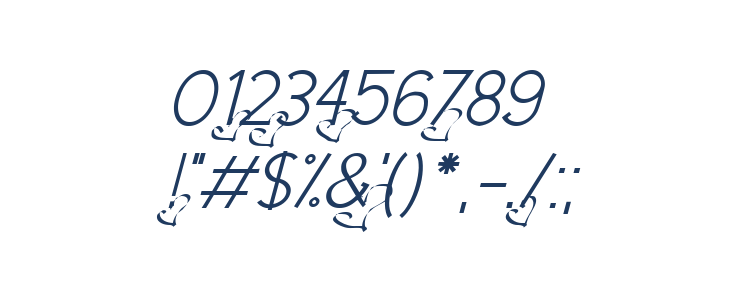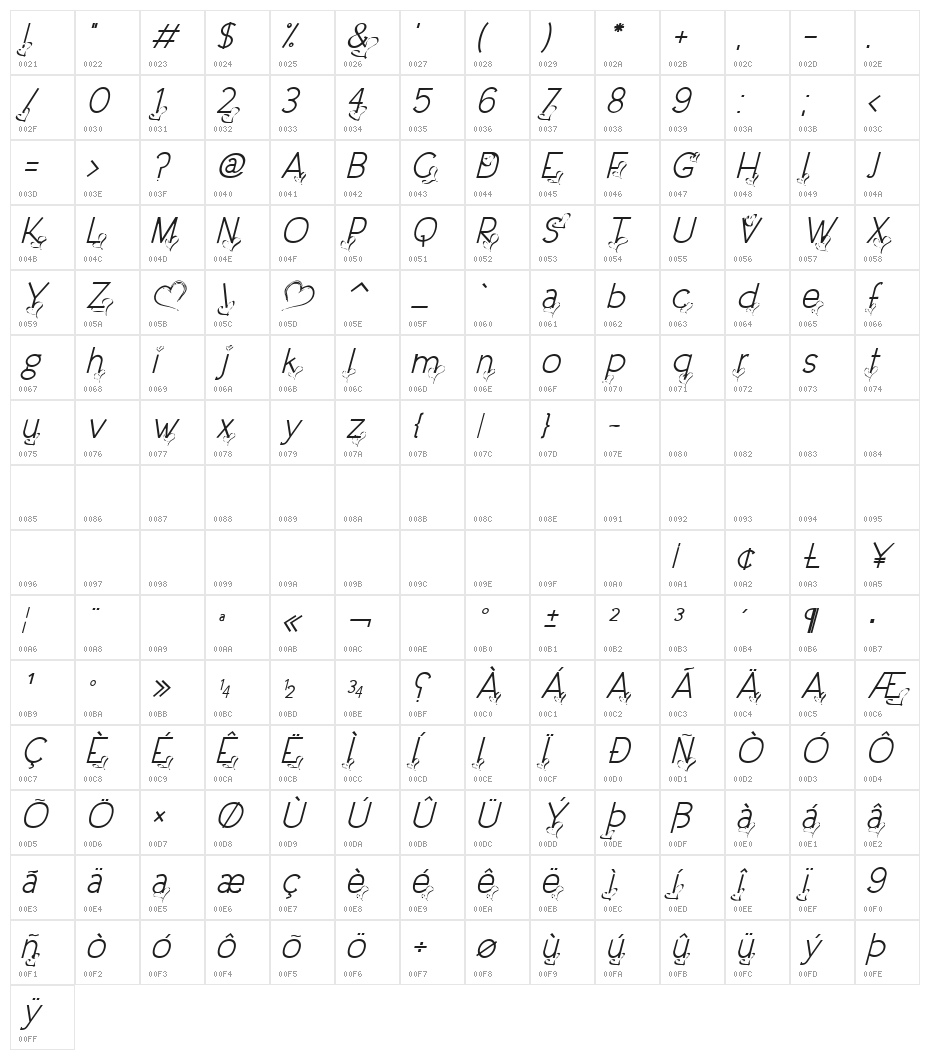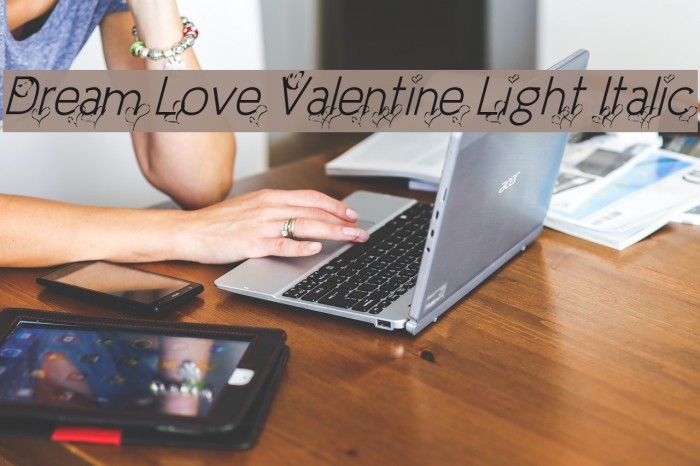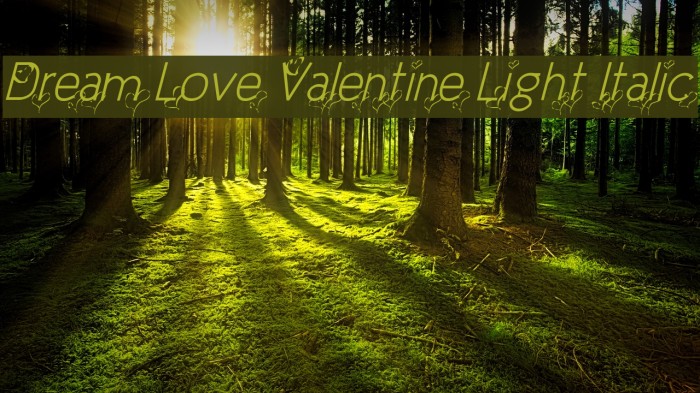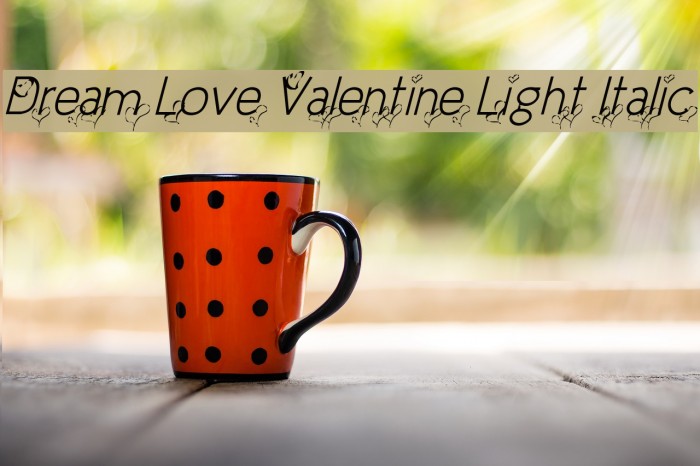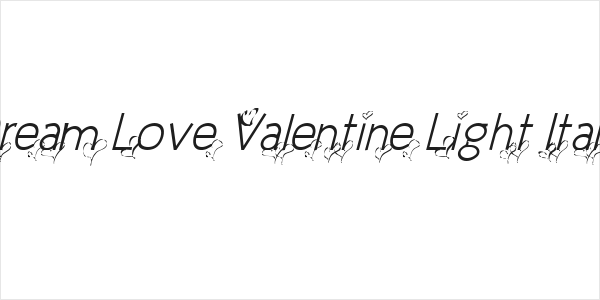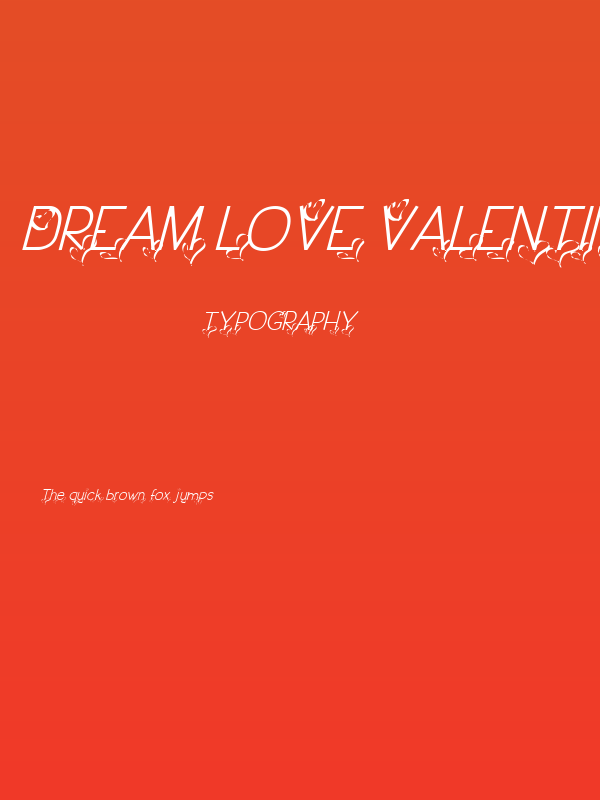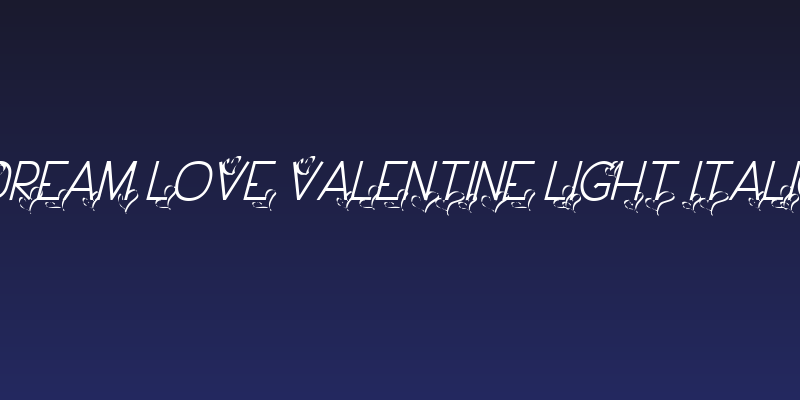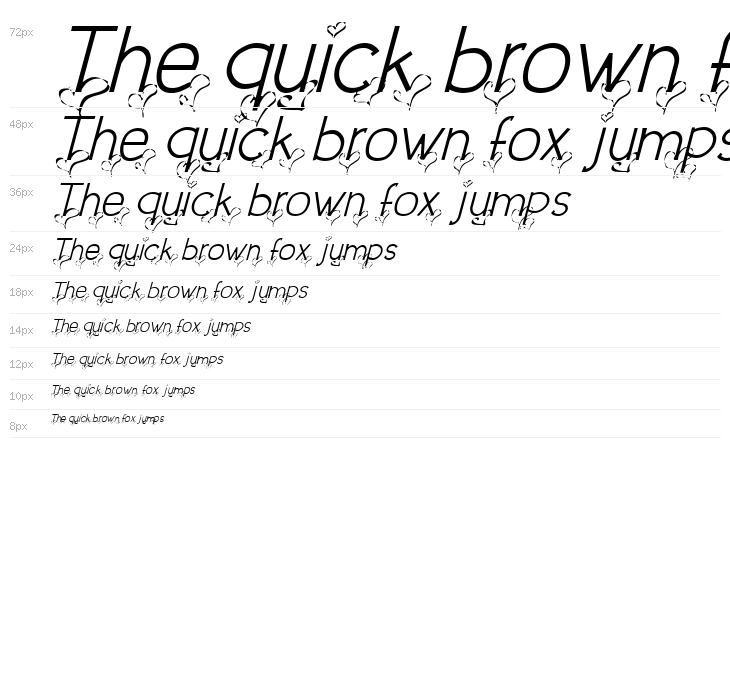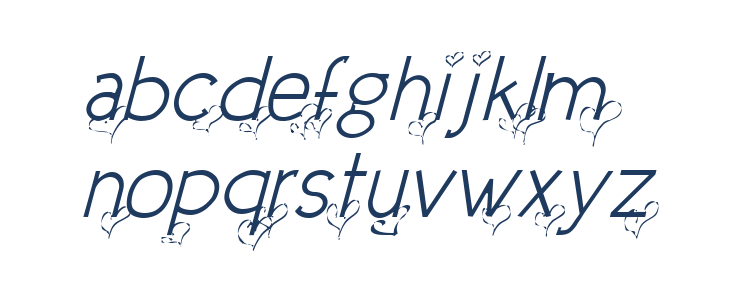
Dream Love Valentine Light Italic Font
Dream Love Valentine Light Italic Description
This font features a whimsical and romantic design, characterized by elegant, flowing letters adorned with heart motifs. The italic style adds a sense of movement and grace, making it ideal for conveying affection and warmth. The light weight of the font ensures a delicate appearance, while the decorative elements enhance its charm. The overall design is playful yet sophisticated, suitable for projects that require a touch of romance and creativity.
| Overall Style | Romantic, Whimsical |
| Use Case | Headlines, Invitations, Greeting Cards |
| Proposed Projects | Perfect for wedding invitations, Valentine's Day cards, love letters, and romantic branding. |